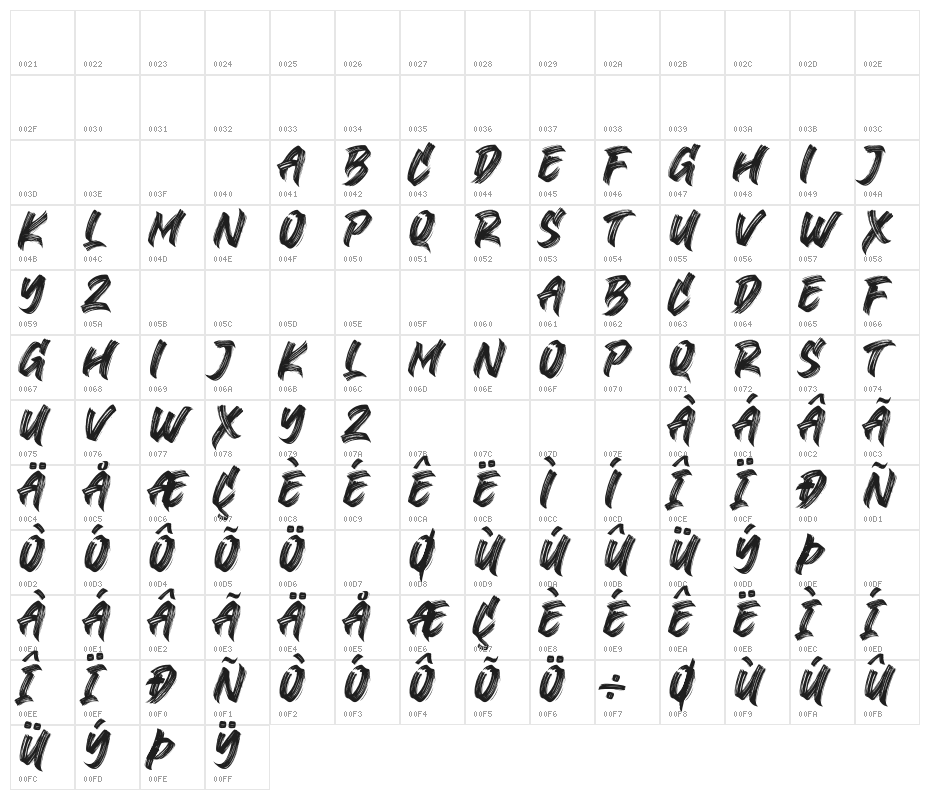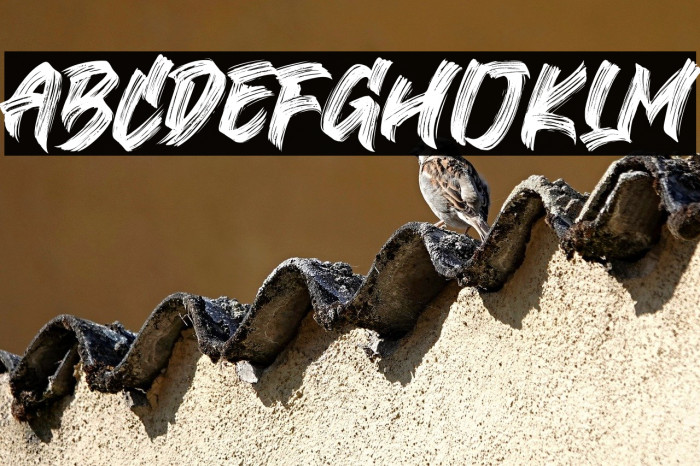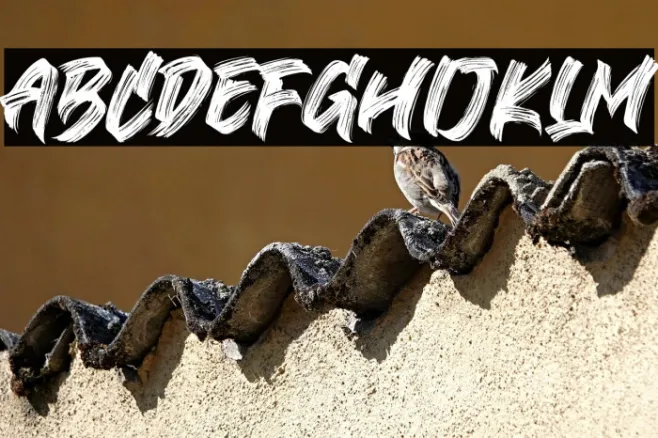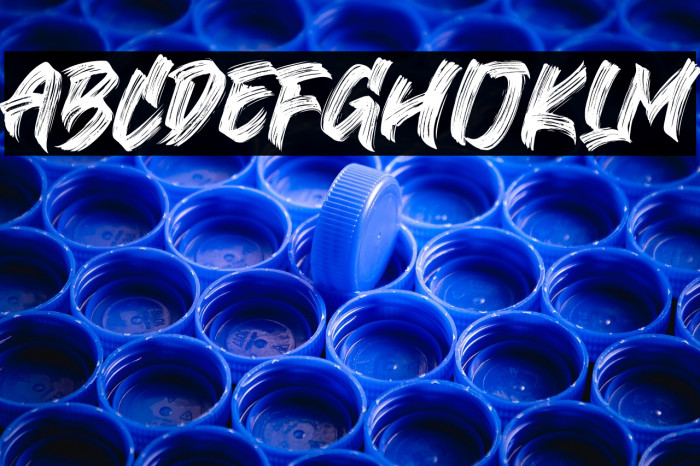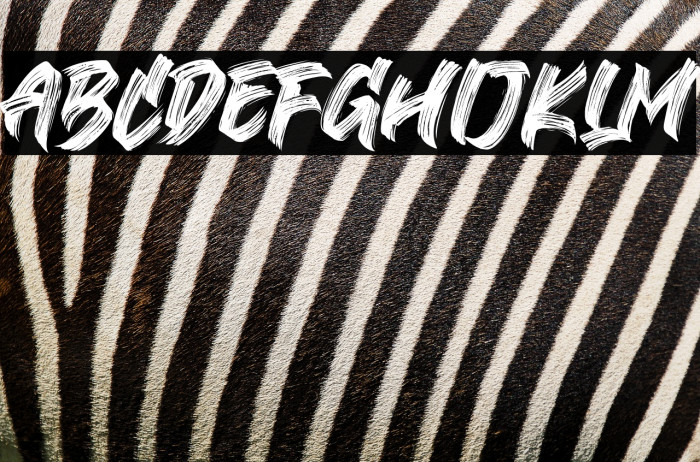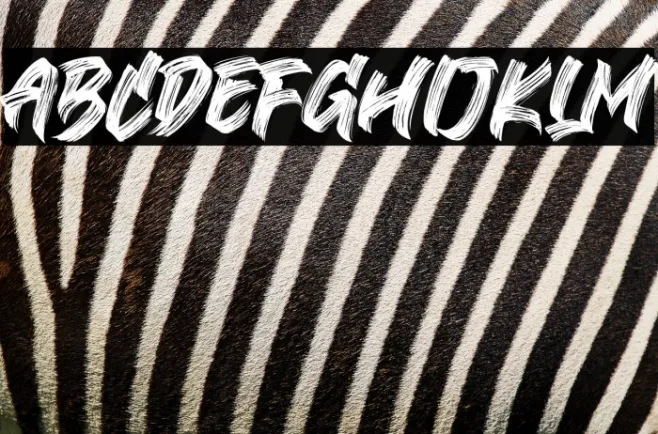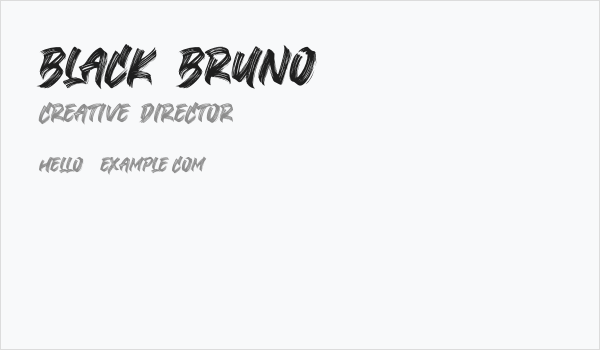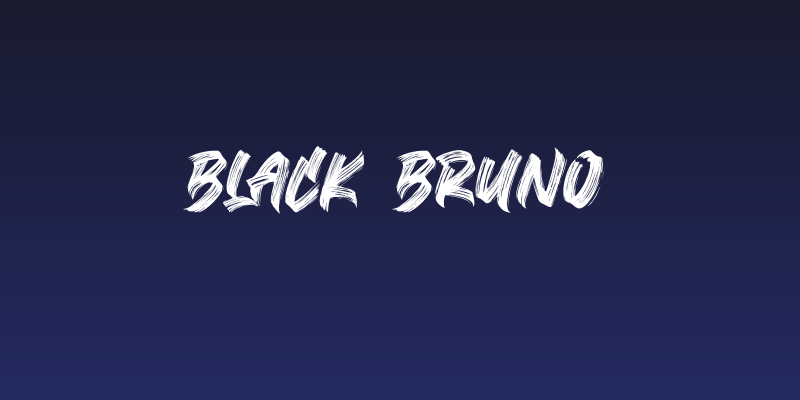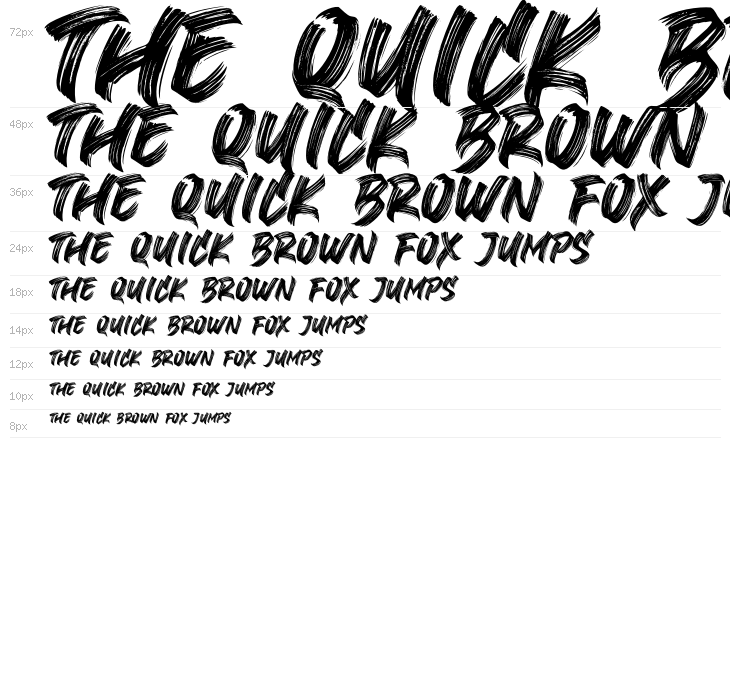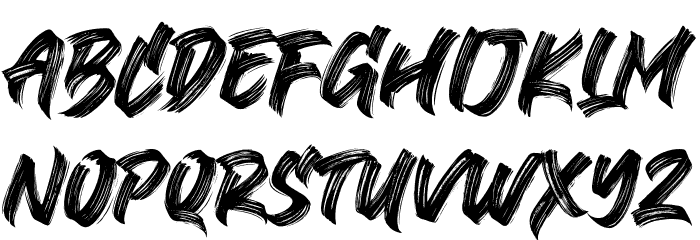
Black Bruno Font
Black Bruno Description
This font features a bold, brushstroke style that exudes energy and dynamism. The strokes are thick and textured, giving each letter a hand-painted appearance. The characters are slightly slanted, adding a sense of movement and fluidity. The overall design is expressive and artistic, making it ideal for projects that require a strong visual impact. The uppercase and lowercase letters maintain a consistent style, with each character uniquely crafted to enhance the font's artistic flair. The font's boldness and texture make it stand out, perfect for attention-grabbing headlines or creative branding.
| Overall Style | Artistic, Dynamic |
| Proposed Projects | Ideal for posters, branding, logos, and any project needing a bold, artistic touch. |